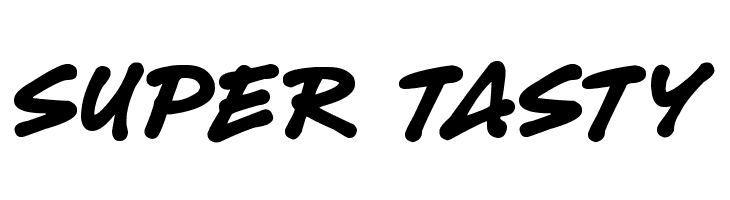
( Fonts by Darrell Flood )
A bold, playful script font with a dynamic and energetic style.
( Fonts by Darrell Flood )
A bold, italic script font with dynamic, flowing strokes.
( Fonts by Eli Shore Productions )
A bold, playful font with rounded strokes and a cartoonish style.
( Fonts by PressGang Studios )
A playful, handwritten font with rounded, consistent strokes and a casual feel.
( Fonts by PressGang Studios )
A bold, playful font with a hand-drawn, casual style.
( Fonts by PressGang Studios )
A bold, italicized font with dynamic and energetic strokes.
( Fonts by PressGang Studios )
A playful, handwritten-style font with an italic slant.
( Font by Jayvee D. Enaguas - grandchaos9000.deviantart.com )
A playful, informal font with rounded, irregular letterforms and consistent stroke width.
( Fonts by Inopatype )
A bold, playful font with a handwritten, energetic style.